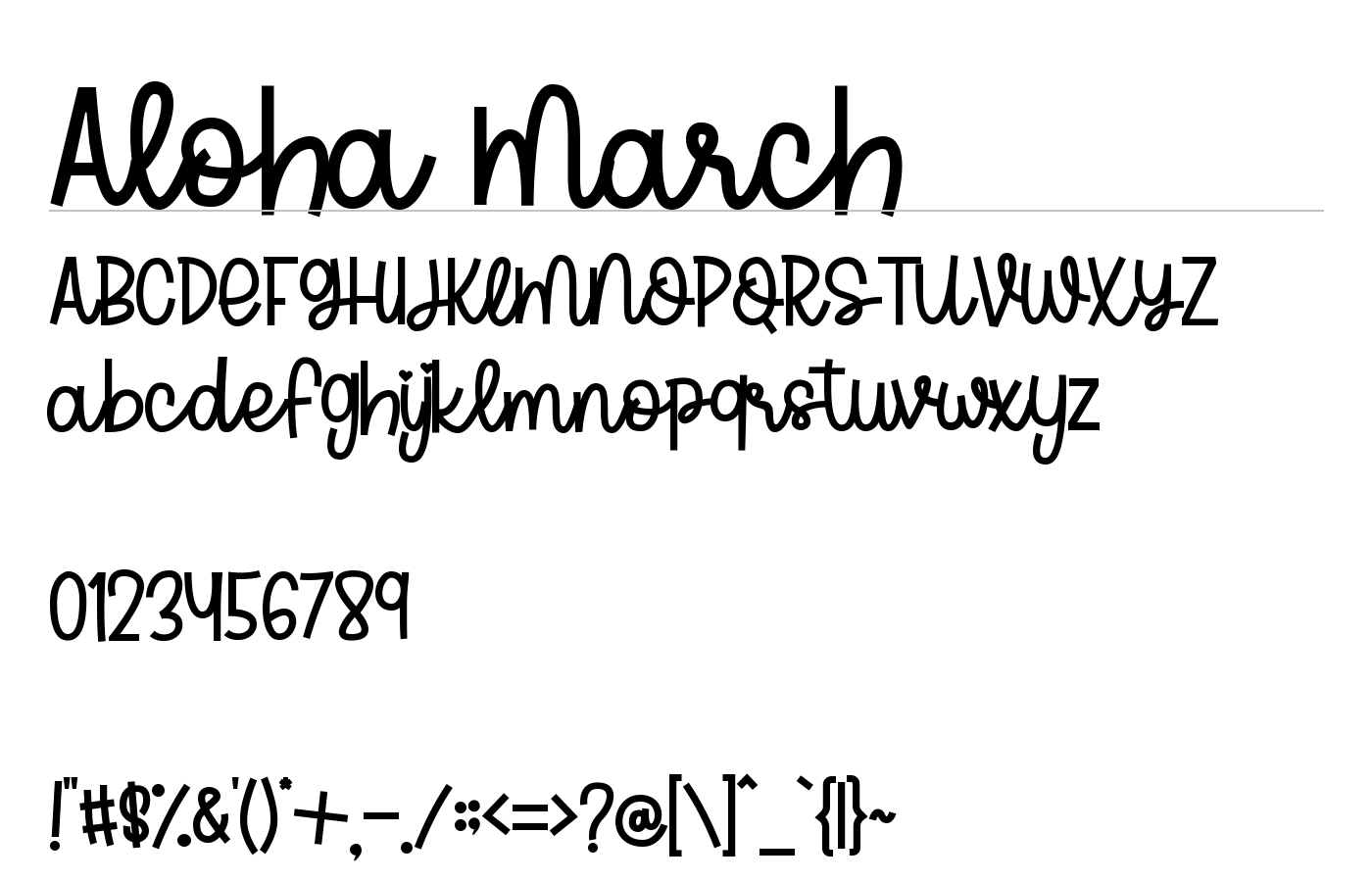
Aloha March is a playful, handwritten script font with a casual, friendly vibe. Its thin strokes and tall, narrow letterforms give it a light and airy feel, making it ideal for informal designs that want to convey warmth and creativity. This font works great for greeting cards, invitations, branding for fun and youthful products, or any project that benefits from a personal, approachable touch.
Aloha March Font
About Aloha March Font
| Font family | Aloha March Font |
| Designer | Dimas Prasetyo |